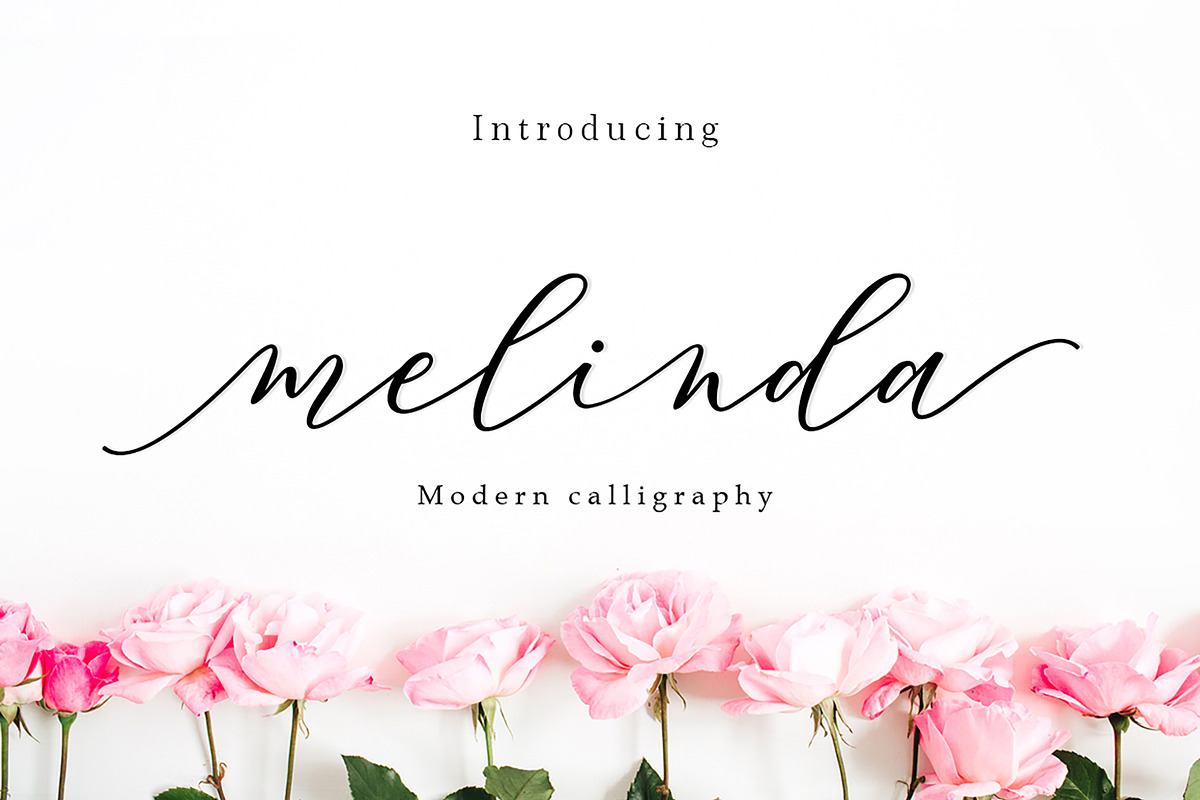
Melinda Font Free Download is an elegant, modern script typeface designed to bring a sophisticated, handwritten feel to your designs. With its flowing curves and smooth lines, this font is perfect for wedding invitations, personal branding, logos, greeting cards, and social media posts that require a personal and stylish touch.
Melinda Font Free Download combines the charm of a handwritten script with the readability of modern typography, making it ideal for both personal and professional use. Whether you're working on a chic brand, event materials, or any creative project, this font adds a refined, elegant touch.